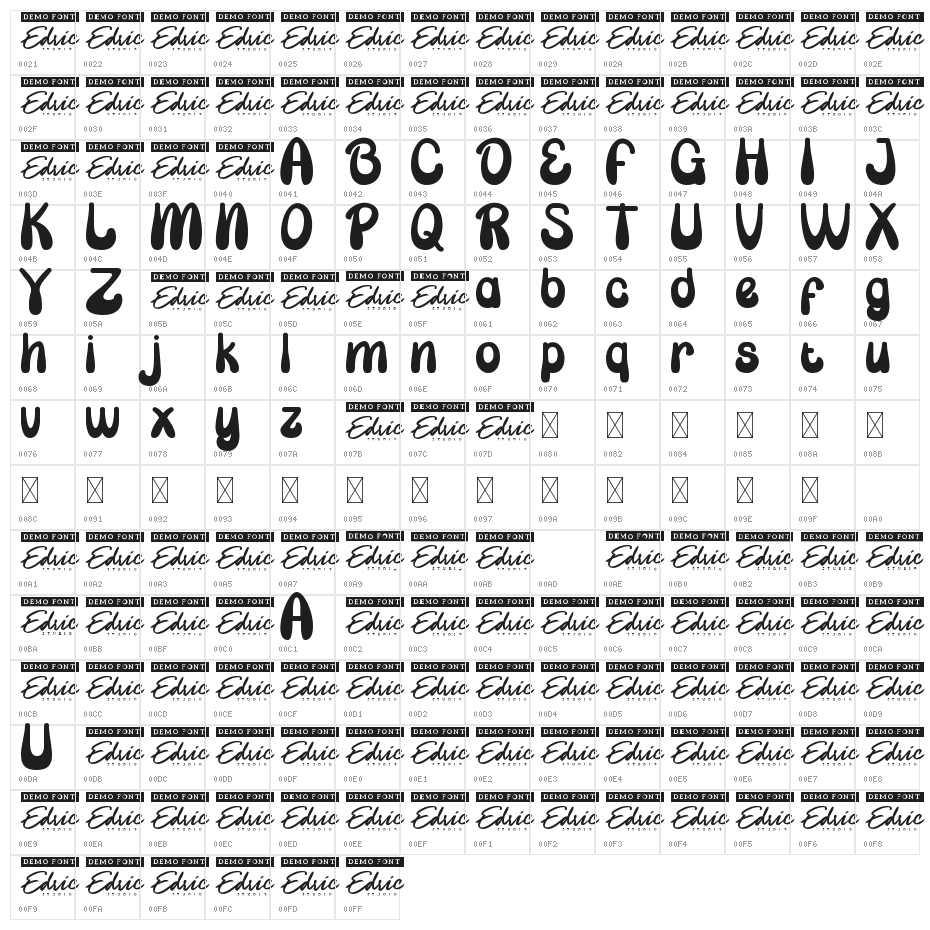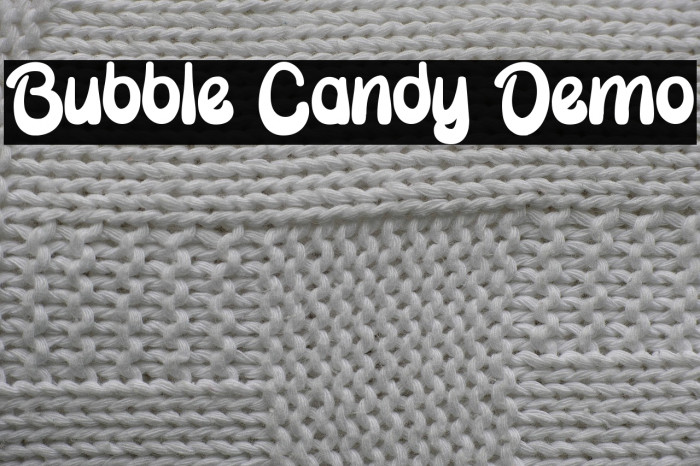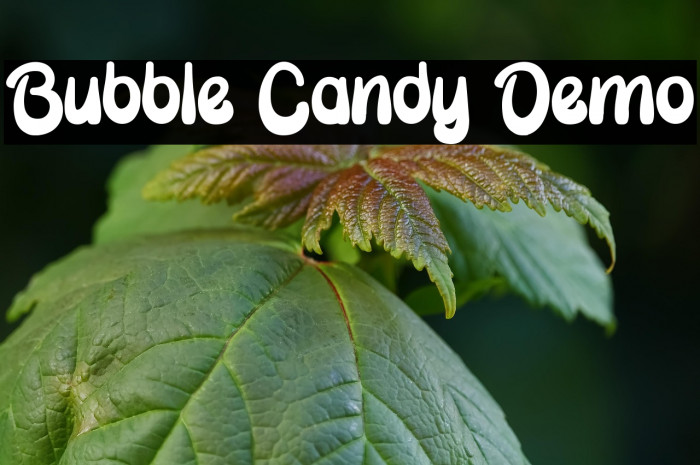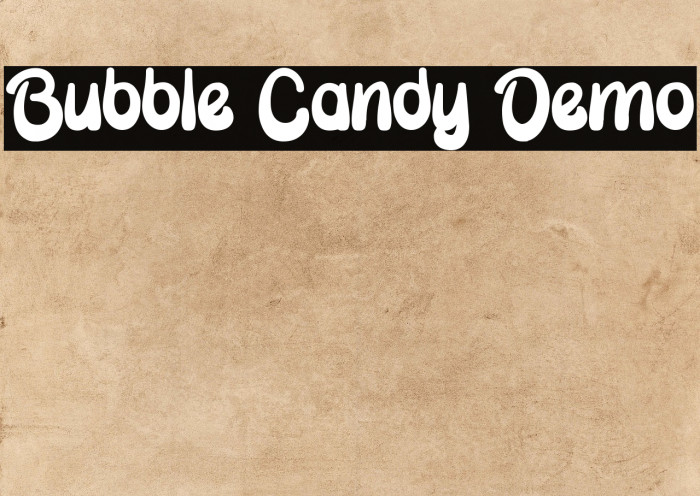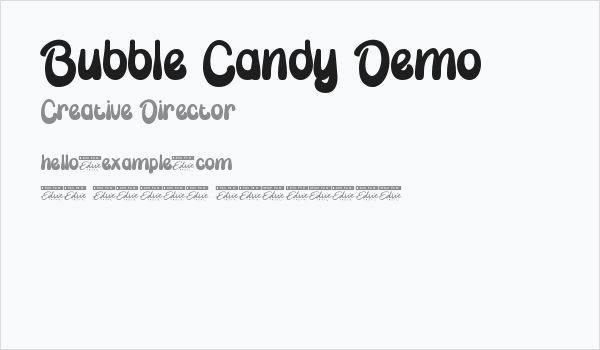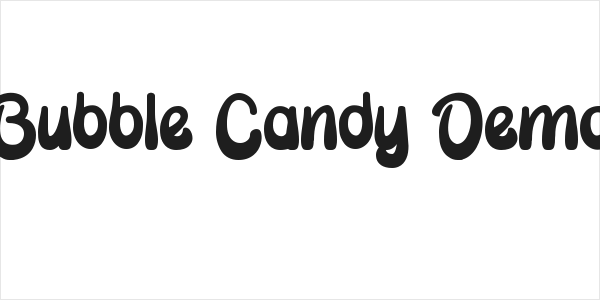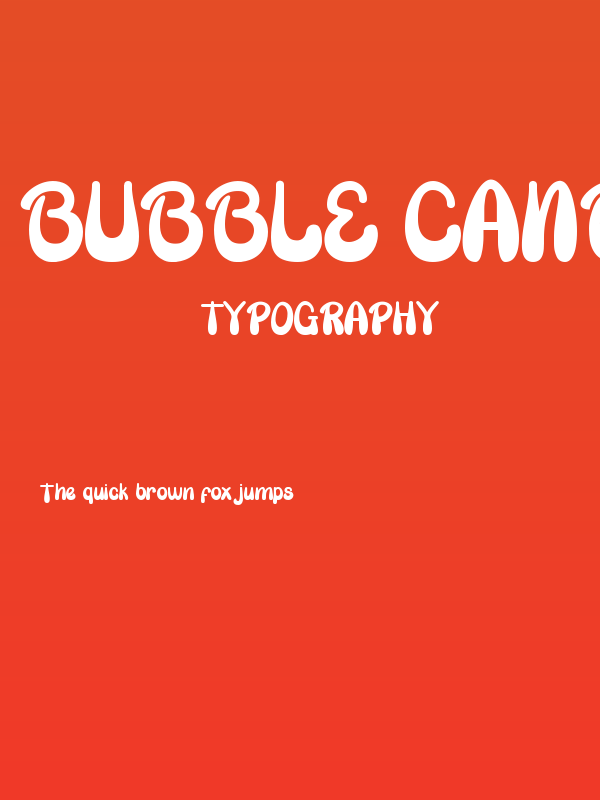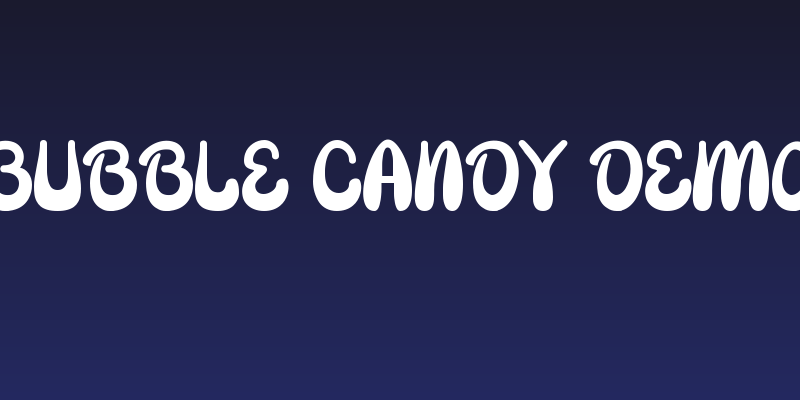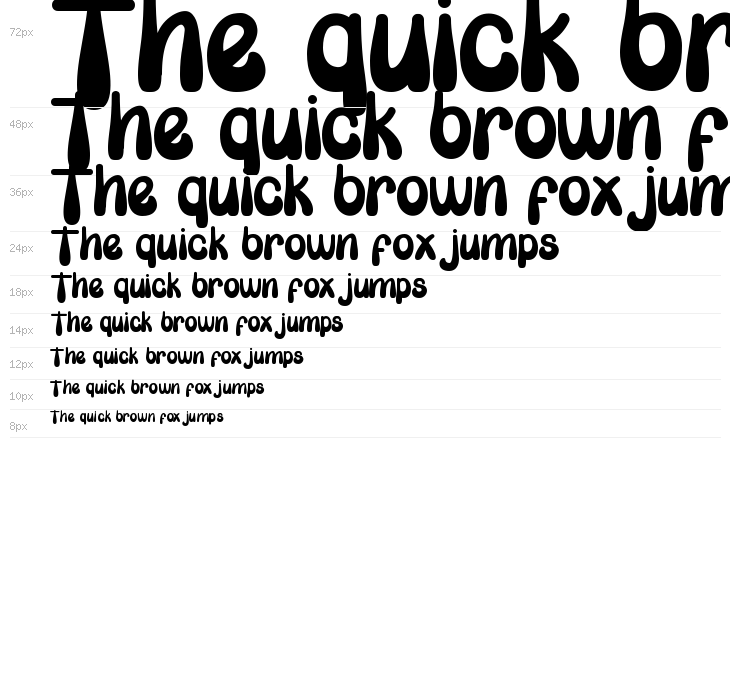
Bubble Candy Demo Font
Bubble Candy Demo Description
This playful and whimsical font features rounded, bubble-like characters that exude a sense of fun and creativity. The letters are bold and have a soft, flowing appearance, making them ideal for projects that require a friendly and approachable aesthetic. The uppercase and lowercase letters maintain a consistent style, with smooth curves and a slightly exaggerated width that enhances their playful nature. The numbers and special characters are equally expressive, adding to the font's versatility. This font is perfect for designs that aim to capture attention and convey a lighthearted message.